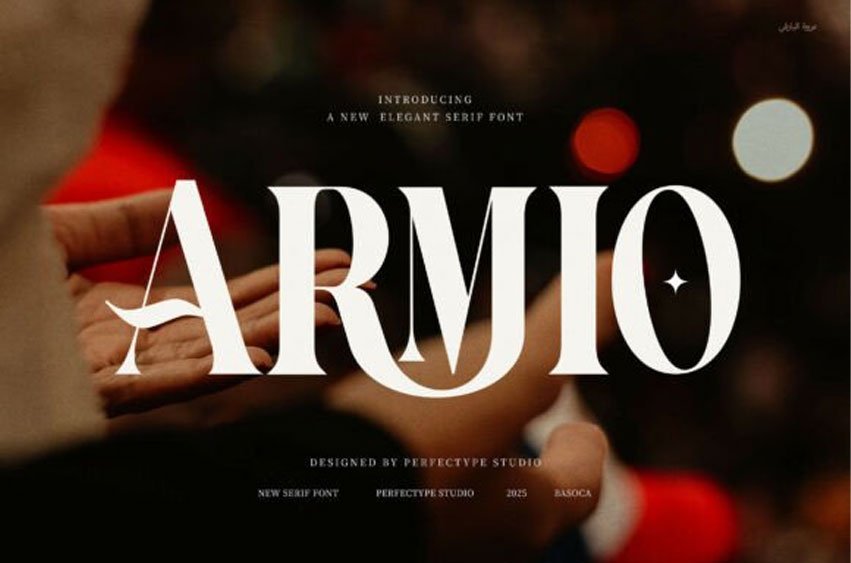
Armio Font is a classy and modern serif typeface designed for visual impact across digital and print platforms. With its proportional shapes and timeless style, Armio is the ideal choice for creating a refined and professional brand presence.
This font offers a perfect mix of elegance and readability. It features clean, balanced letterforms and functional ligatures that enhance flow and add beauty to every project. From logos to product packaging, Armio’s versatile design makes it a must-have for creative professionals.